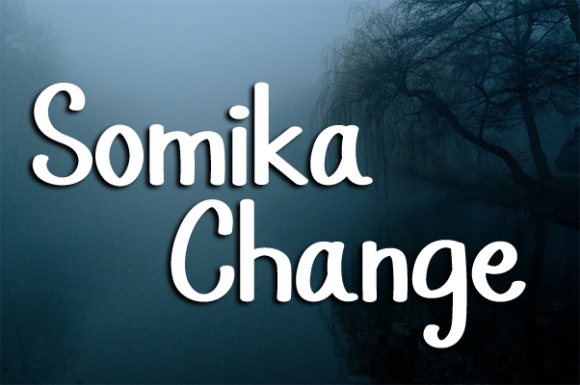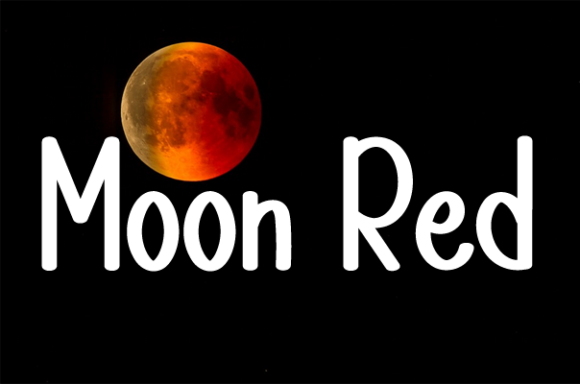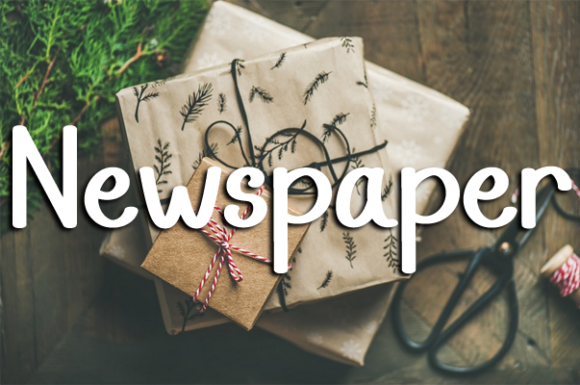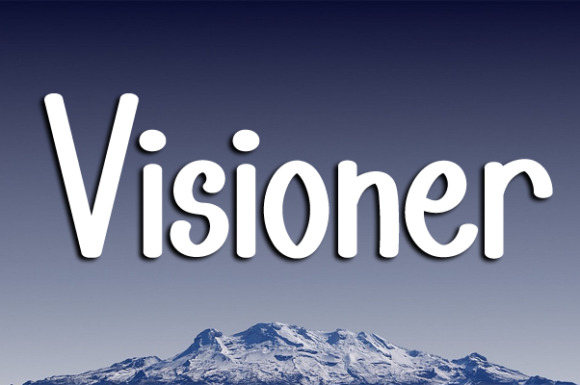
Somika Change Font
About Somika Change Font
Somika Change is a sweet and friendly handwritten font. Its natural and unique style makes it incredibly fitting to a large pool of designs. The only limit is your imagination!